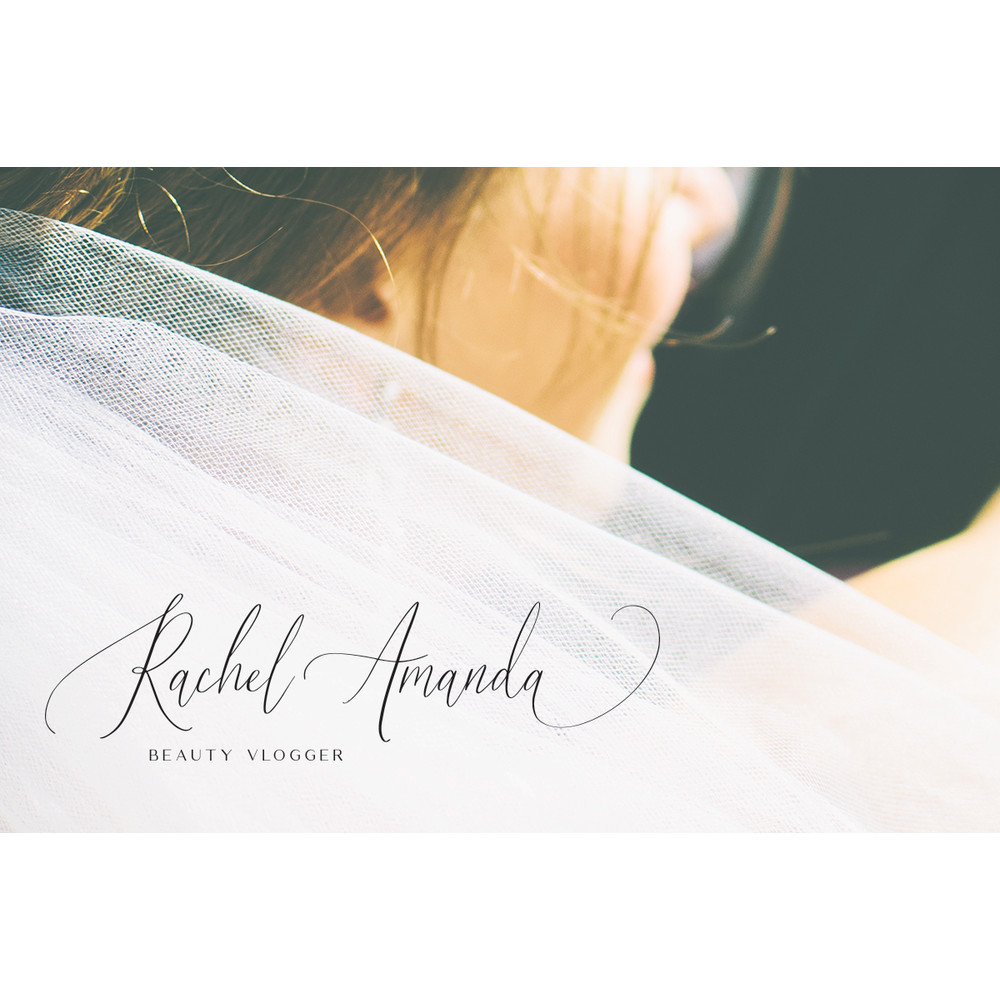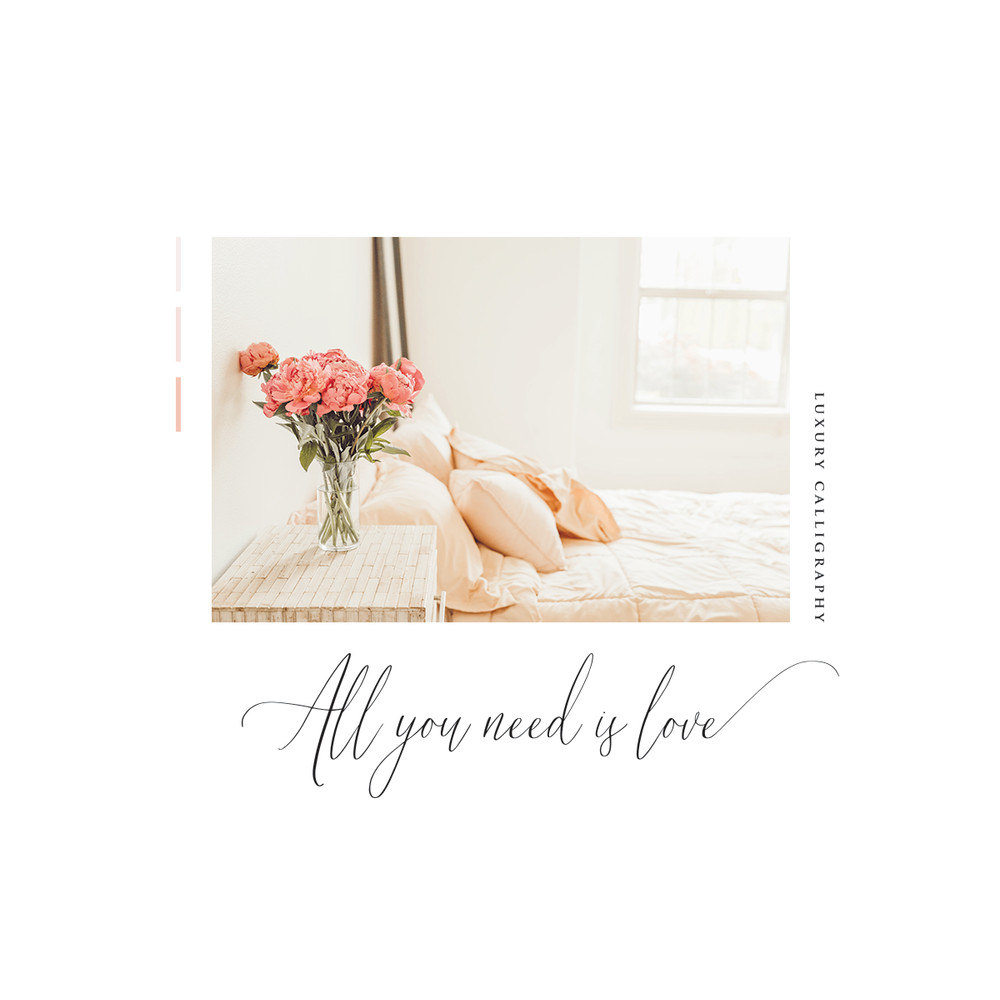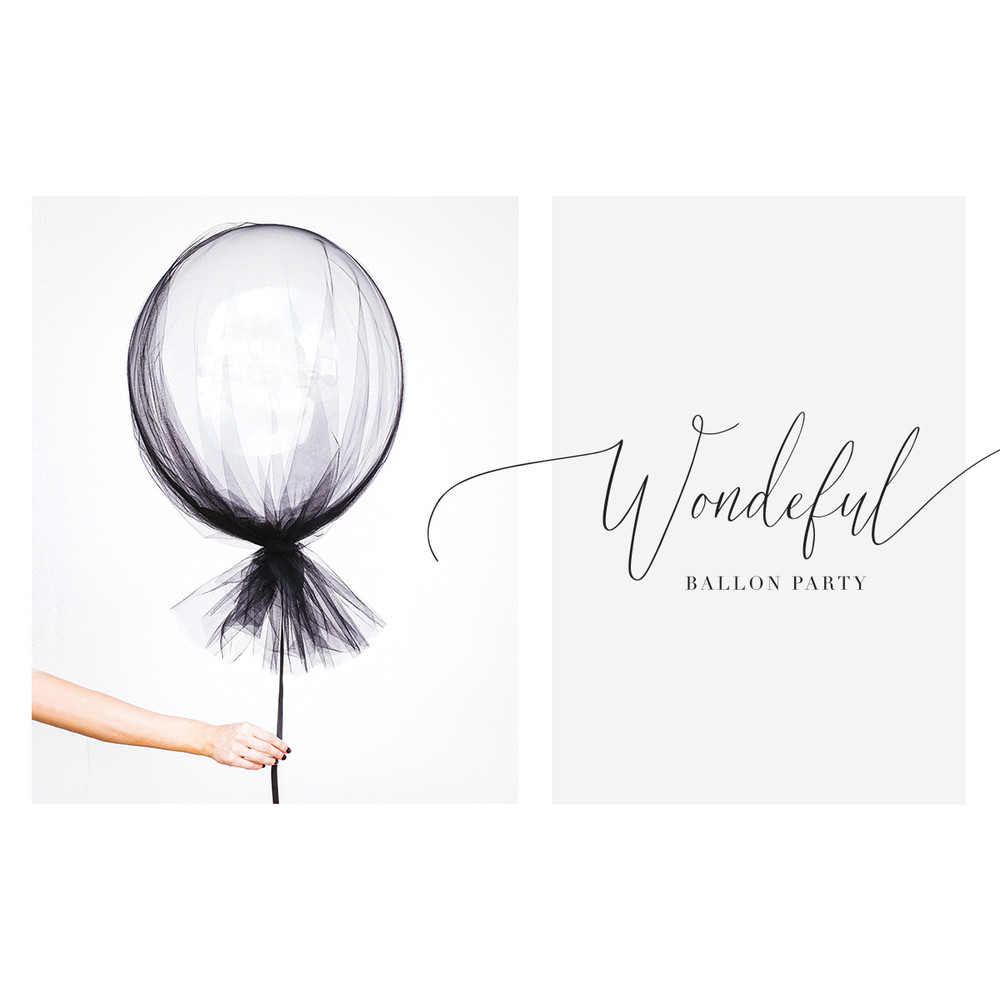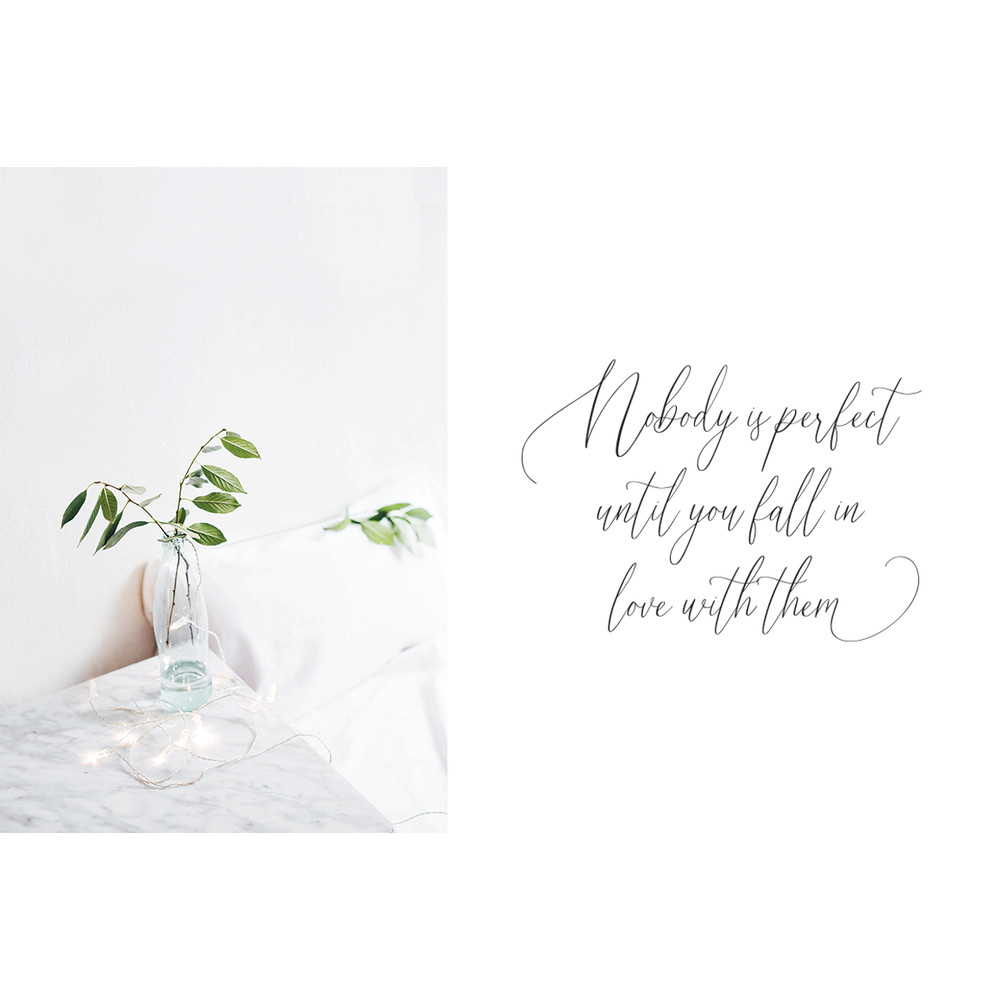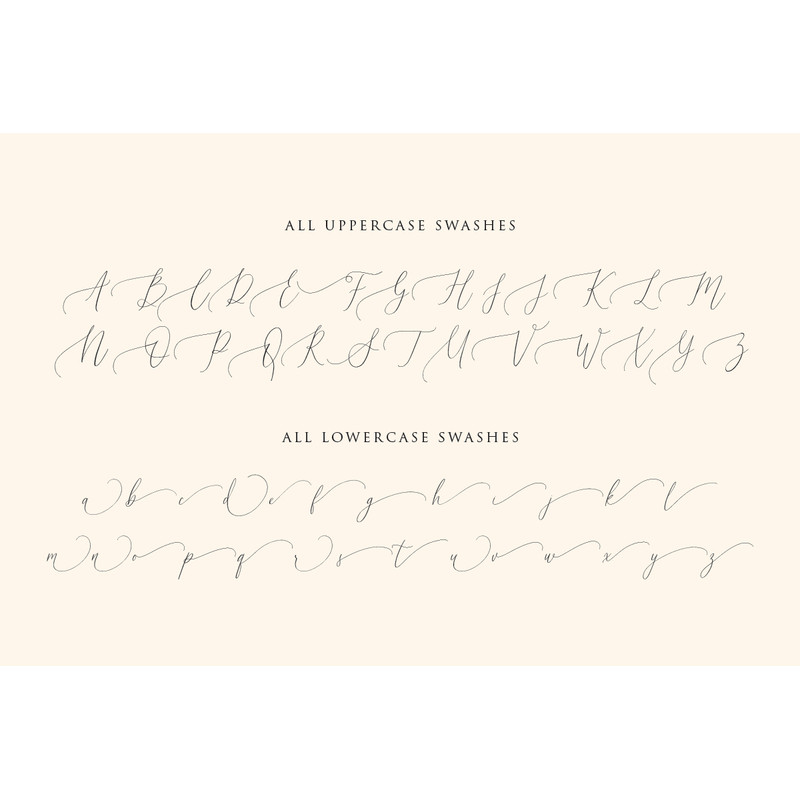
Audrey & Reynold – Luxury Script Trending Fonts - Digital Font
Audrey & Reynold is modern calligraphy font with contemporary, sophisticated accents. It is perfect for wedding branding, wedding invites and cards, and maybe for red wine label.
Audrey & Reynold includes full set of gorgeous uppercase and lowercase letters, numerals, a large range of punctuation and ligatures. Uppercase and lowercase include beginning and ending swashes, giving realistic hand-lettered style, that makes the font look fabulous!